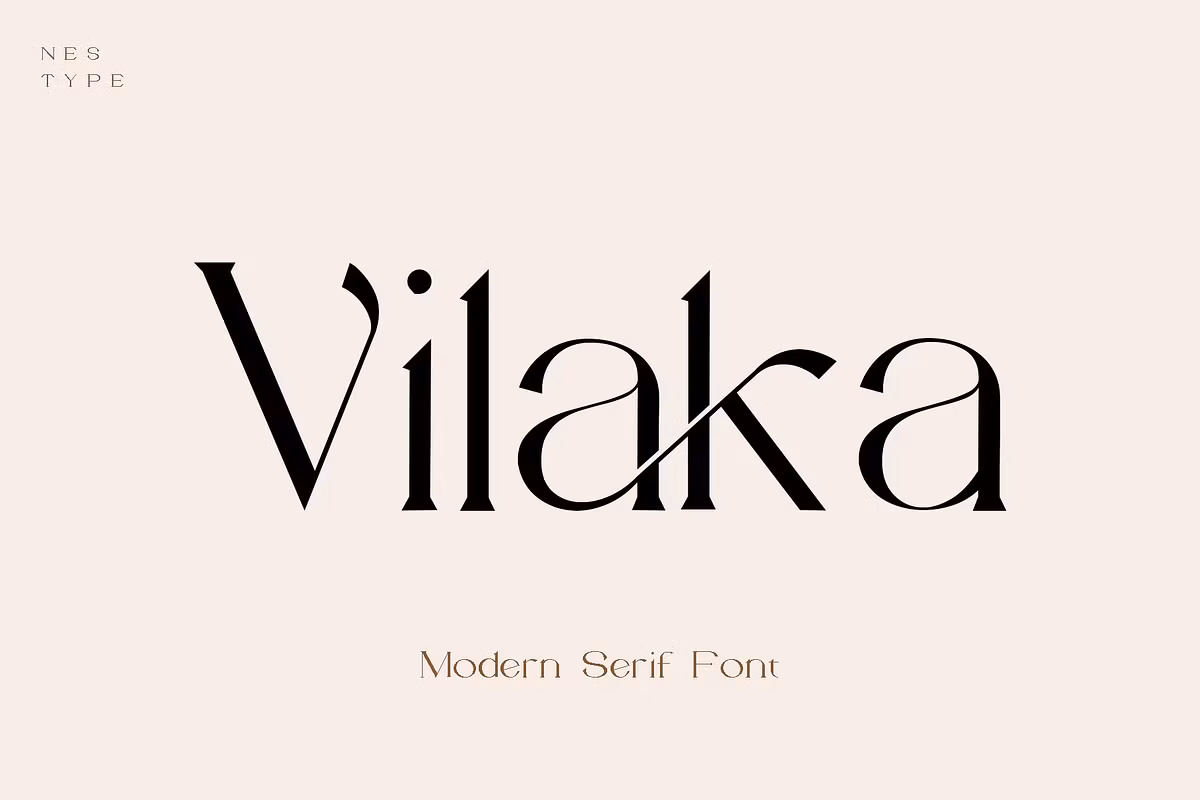
Vilaka Modern Serif Font Free Download is a sleek, contemporary serif typeface designed to bring a modern, stylish feel to your designs. With its clean lines, sharp edges, and balanced proportions, Vilaka is perfect for a wide range of projects, including branding, editorial layouts, logos, packaging, and more.
Its elegant yet strong presence makes it ideal for both large headlines and smaller text, offering versatility and readability across various design applications. Whether you're creating a luxury brand, a modern website, or stylish marketing materials, Vilaka provides a sophisticated and refined typographic solution.